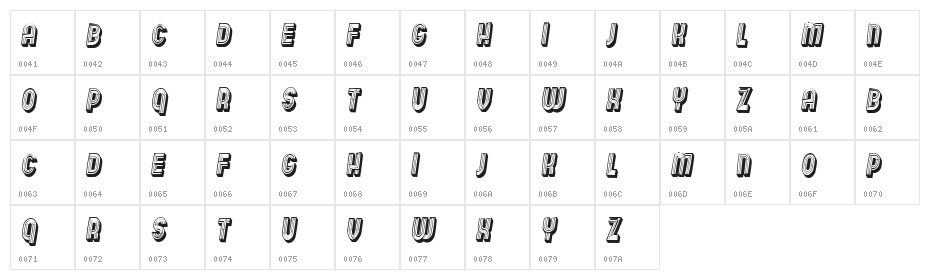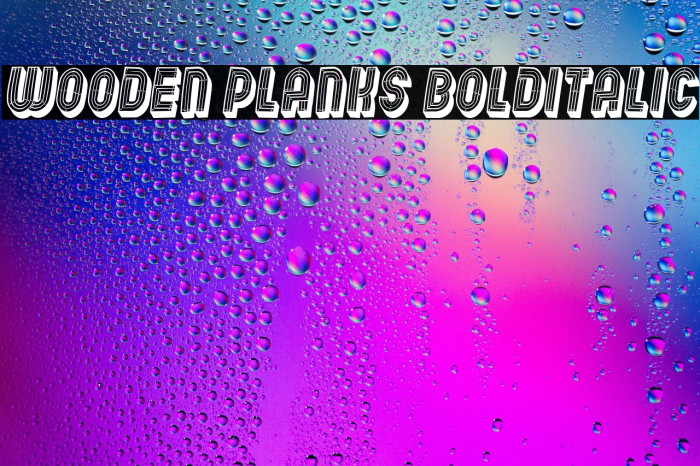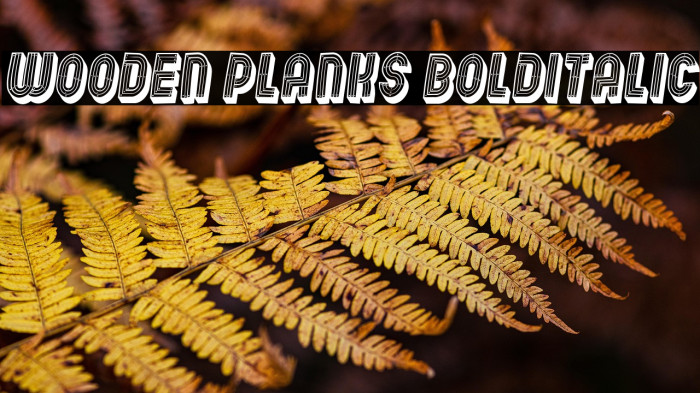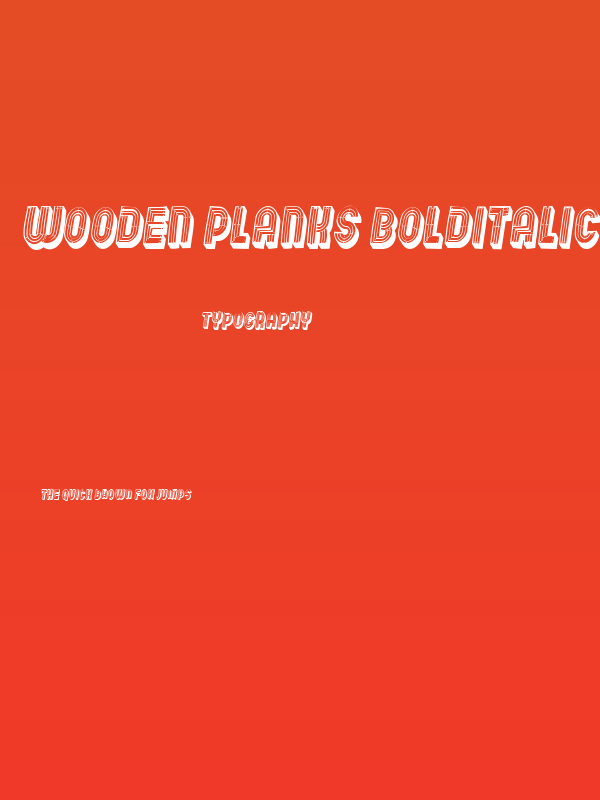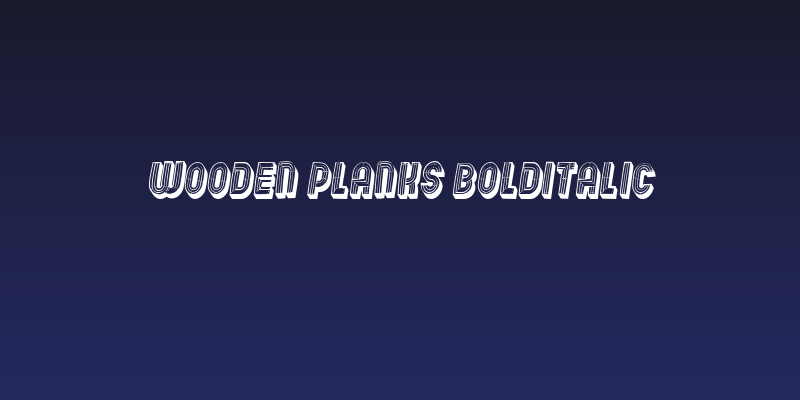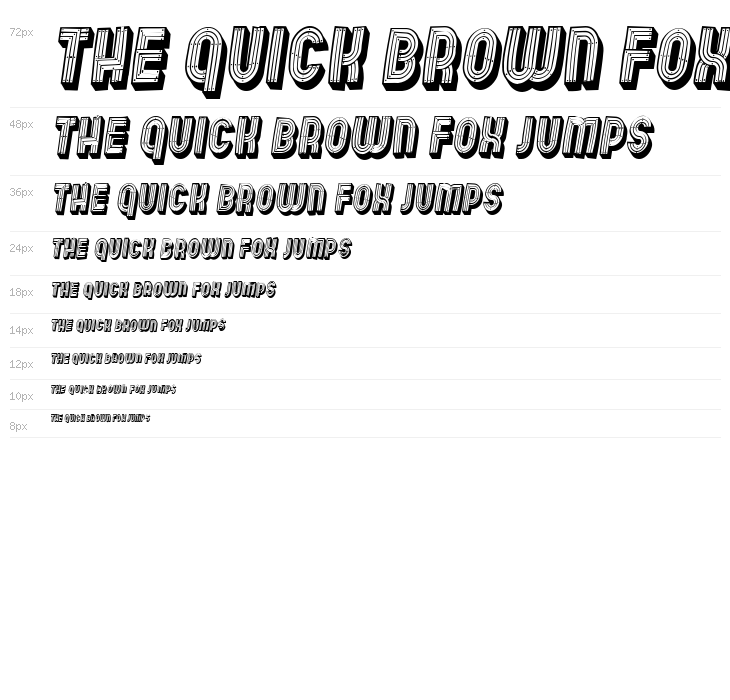
Wooden Planks BoldItalic Font
Wooden Planks BoldItalic Description
This font features a bold and italicized style with a unique 3D effect, reminiscent of wooden planks. The characters are outlined with a shadow that gives them depth and a striking appearance. The design is highly decorative, making it ideal for eye-catching displays. Each letter is crafted with precision, showcasing a blend of modern and vintage aesthetics. The boldness of the font ensures visibility, while the italic slant adds a dynamic and energetic feel. The intricate detailing within each character adds to its decorative appeal, making it suitable for projects that require a standout typographic element.